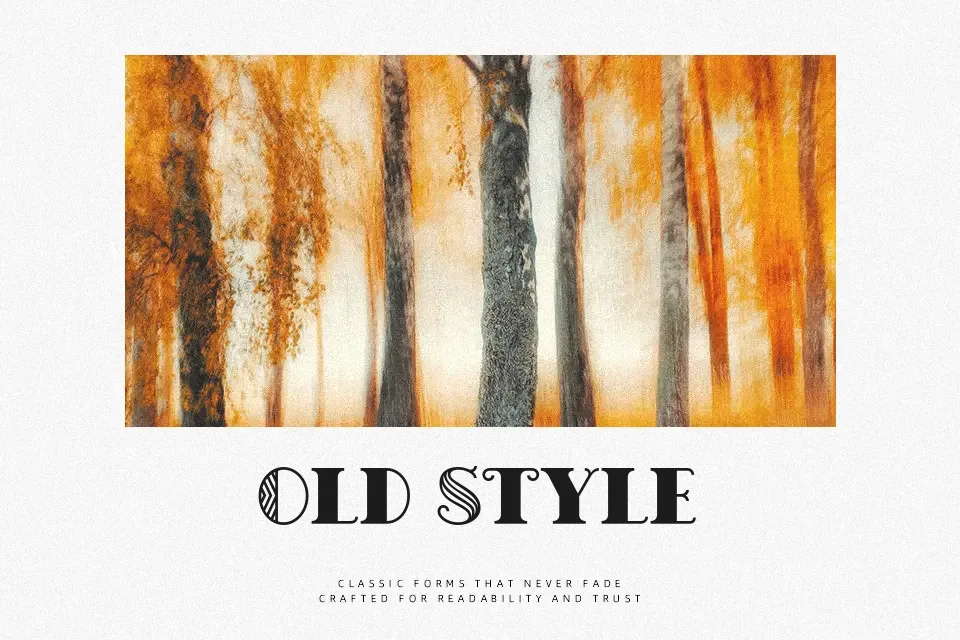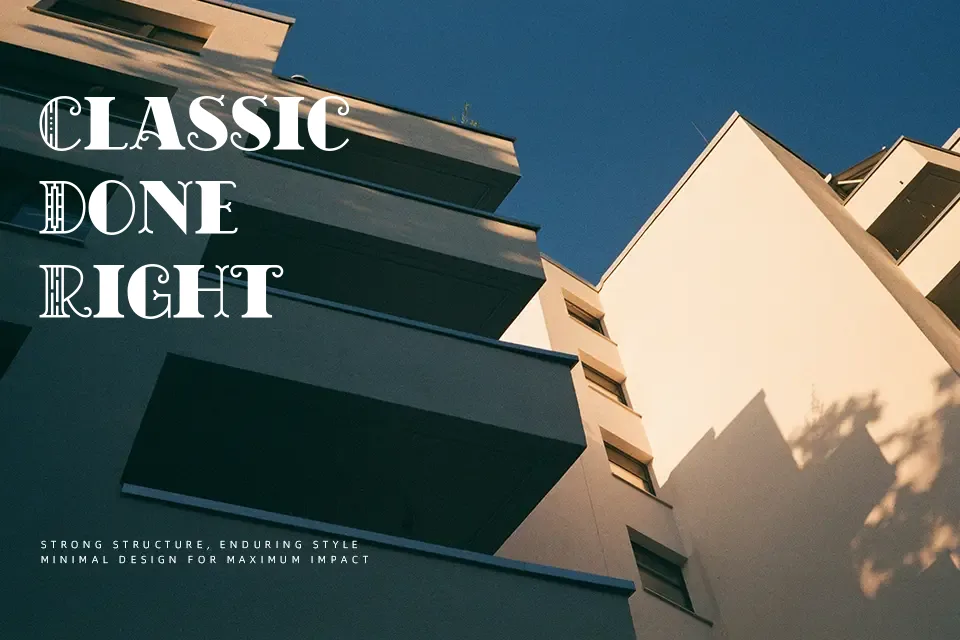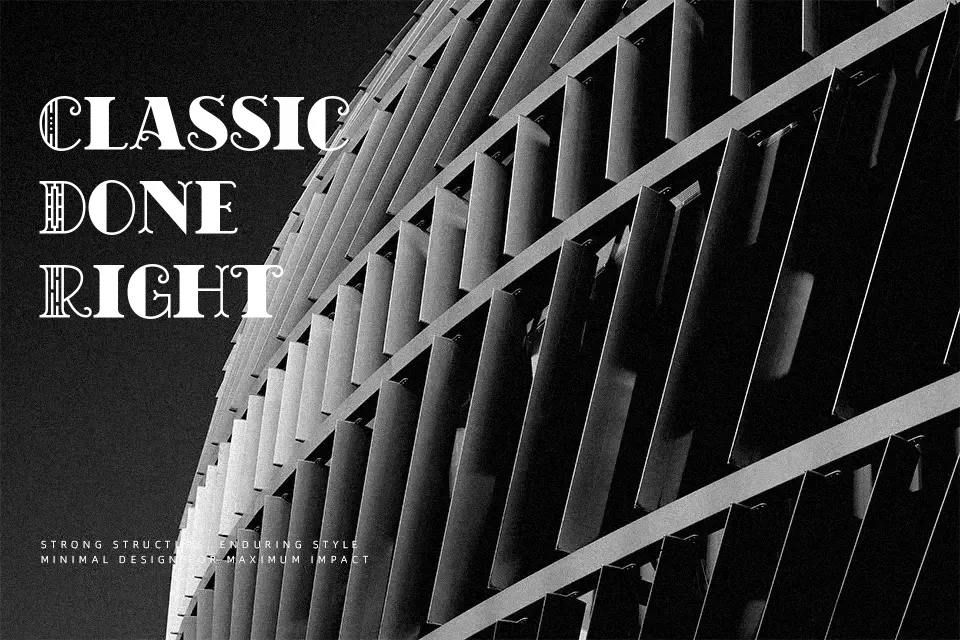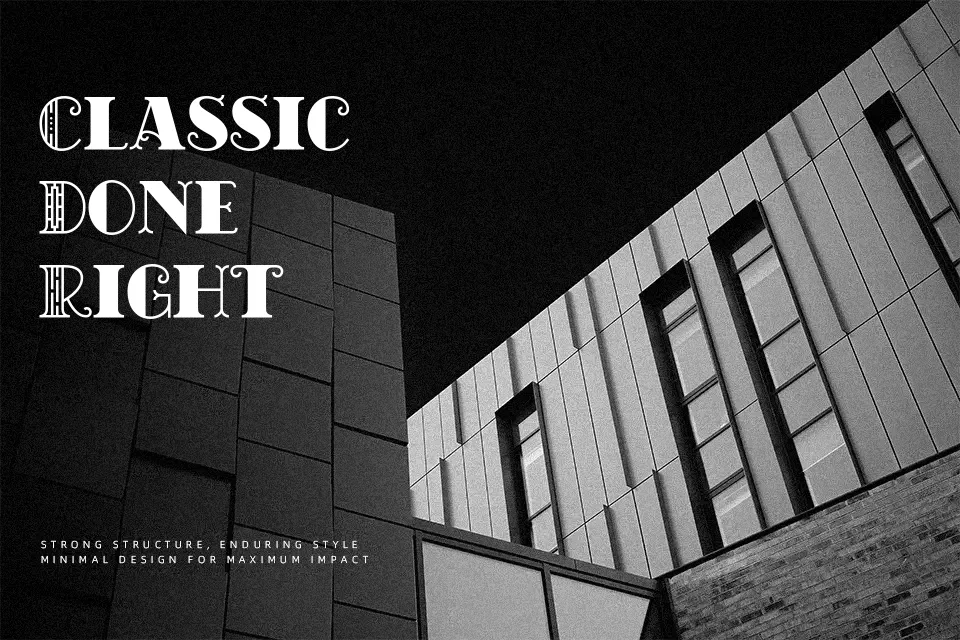
Chicago Moonshine Font
Designed by Roland Huse Design
Chicago Moonshine Font presents a distinctive all-caps display structure influenced by classic twentieth-century decorative design. The typeface pairs crisp serif terminals with pronounced stroke contrast and intricate geometric line patterns nestled within the primary capitals. Proportions remain tall and structured, while the character spacing is tuned tightly to maximize graphic impact across display arrangements. The intricate interior patterns remain crisp and impactful when rendered in oversized headlines, lending instant period character to cocktail menus and vintage event signage. However, the dense decorative linework reduces clarity at smaller scales, making the design unsuitable for body copy or small interface text.
Best For: craft distillery packaging, speakeasy signage, retro event posters, cocktail menu headlines
Not Ideal For: continuous body copy, small mobile interface text, dense editorial paragraphs, technical documentation
Perfect for headline, logo, and packaging, with a elegant and decorative style.